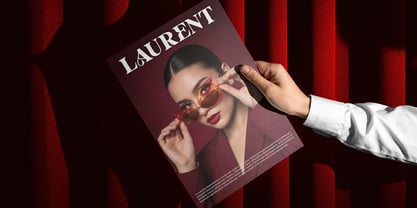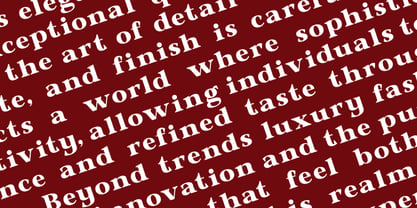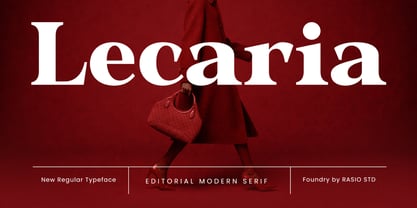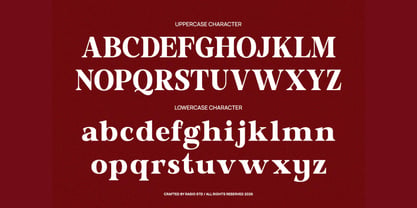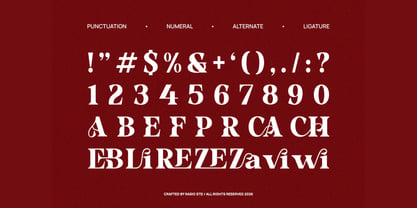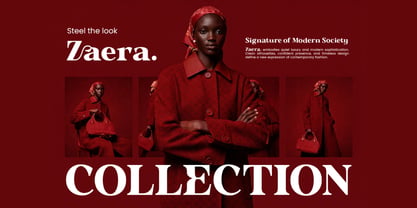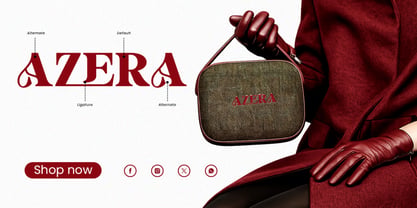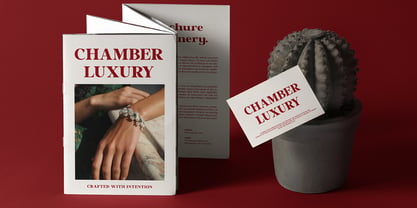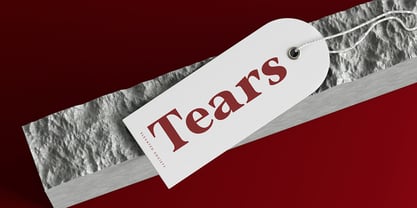
Lecaria
by Rasio Studio
The Lecaria Font Family was designed by Fajar Indra and published by Rasio Studio. Lecaria contains 1 styles. More about this family
Lecaria is a modern editorial serif font designed with a refined balance of elegance and contemporary structure. It features high-contrast strokes, sharp serif details, and stylish alternates that elevate typographic compositions with a premium feel. The font includes uppercase, lowercase, numerals, punctuation. Lecaria is highly relevant for modern editorial and luxury-focused design projects that require a sophisticated and professional tone. It works exceptionally well for fashion branding, magazine layouts, product packaging, and high-end marketing materials. The refined serif details and strong contrast make it ideal for headlines, logos, and visual storytelling, delivering a polished and contemporary aesthetic across both print and digital platforms.